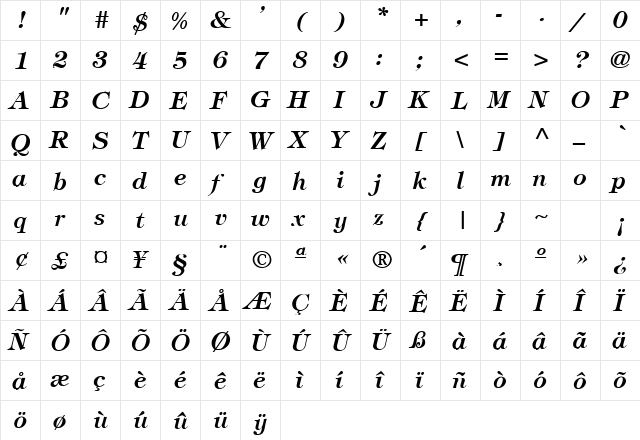
Tiffany-BoldItalic Regular Font Preview
Tiffany-BoldItalic Regular
Design Context for Tiffany-BoldItalic Typeface
Tiffany-BoldItalic offers clean, dependable letterforms without strong stylistic allegiance, making it a practical choice for designers who need flexibility. The slanted form adds forward momentum and visual energy. Its bold stroke weight gives it real presence on the page.
Pro Tip: Use Tiffany-BoldItalic for emphasis, pull quotes, and subheadings where its slanted energy can add rhythm to the layout.